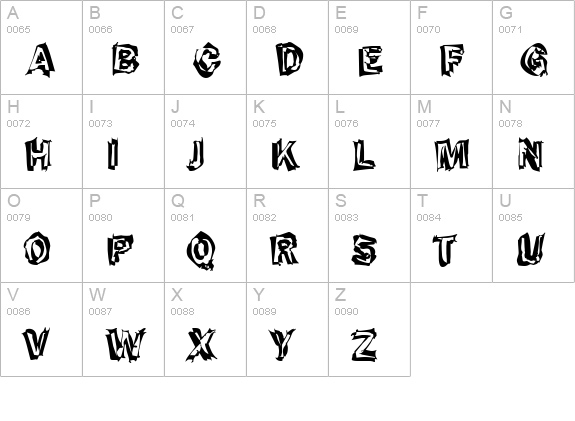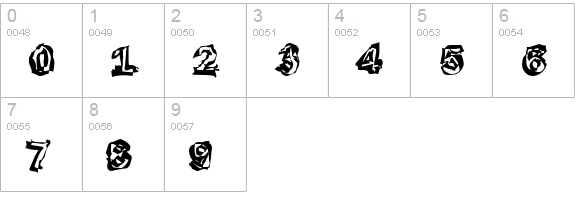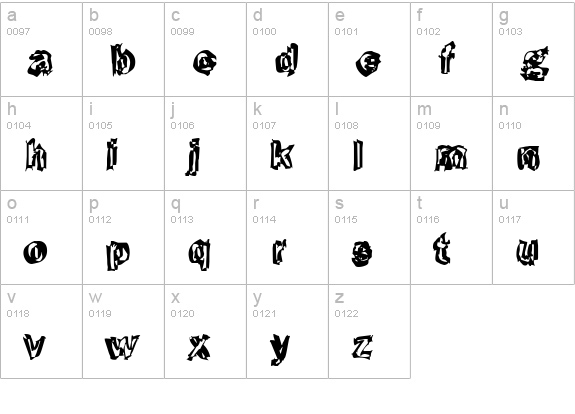
Funky43-Bold Font Details
Funky43-Bold is a strong, high-contrast variant in the Funky43 typeface family \xE2\x80\x94 well suited to headlines, attention-grabbing titles, and strong calls-to-action.
Funky43-Bold font is a vibrant and lively typeface that exudes a sense of fun and playfulness. With its bold and funky design, this font is perfect for adding a touch of personality to any project. The unique shapes and curves of the letters give off a modern and edgy vibe, making it a great choice for posters, logos, and other creative designs. What's even better is that Funky43-Bold font is completely free to download at FontsMarket.com. This means you can easily access this eye-catching font and start using it in your projects right away. Whether you're looking to make a statement or simply add a bit of flair to your designs, Funky43-Bold font is sure to make a bold impression. Download it today and let your creativity shine with this exciting and dynamic typeface.